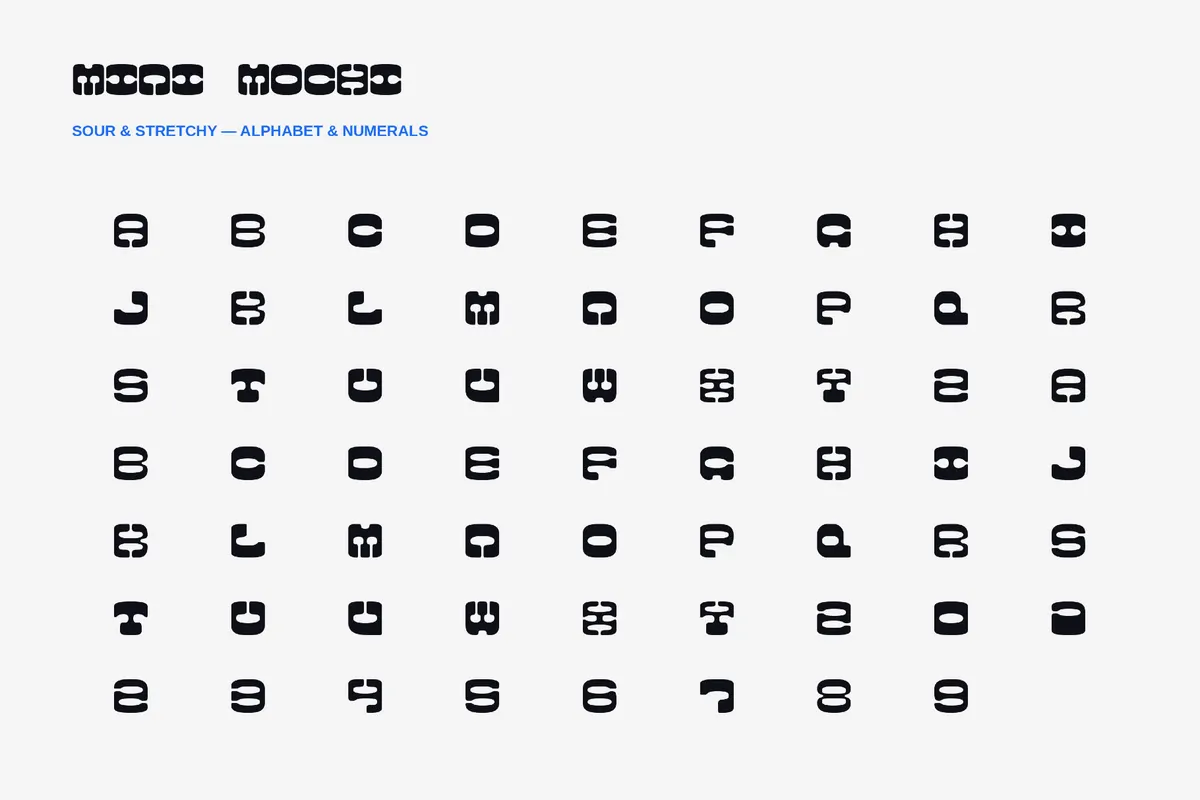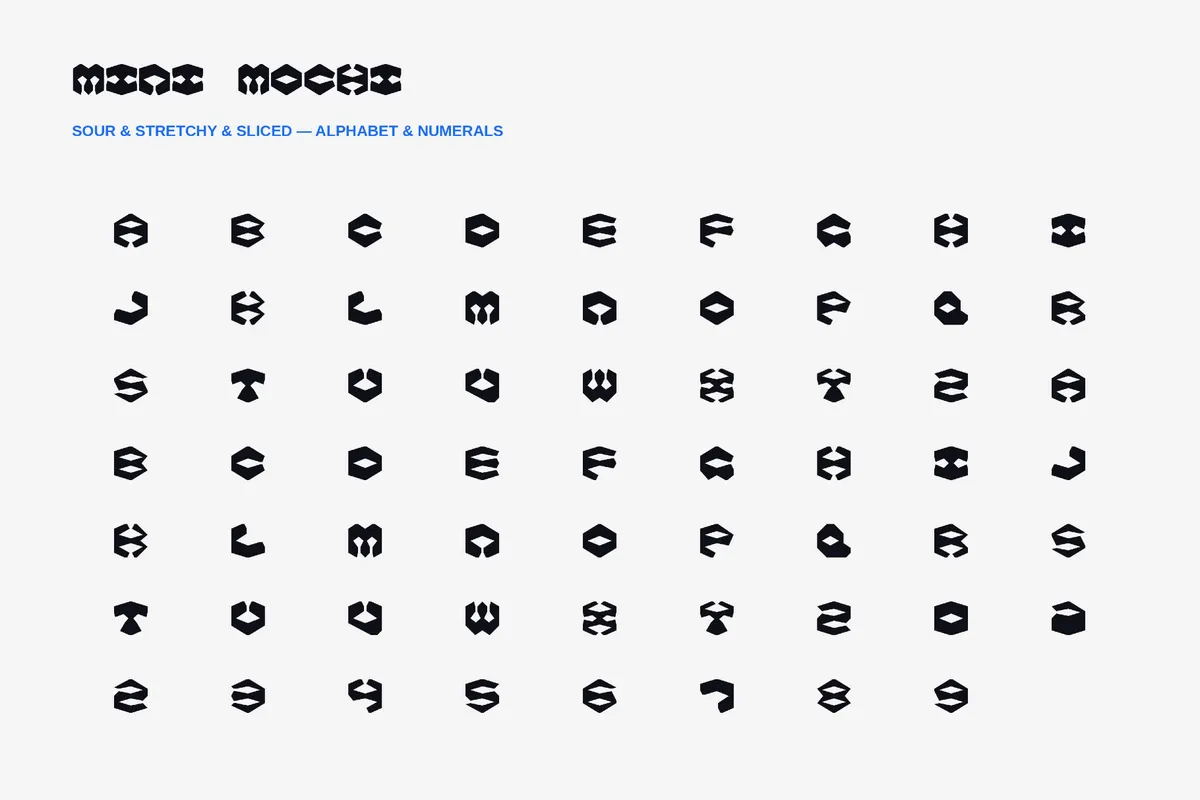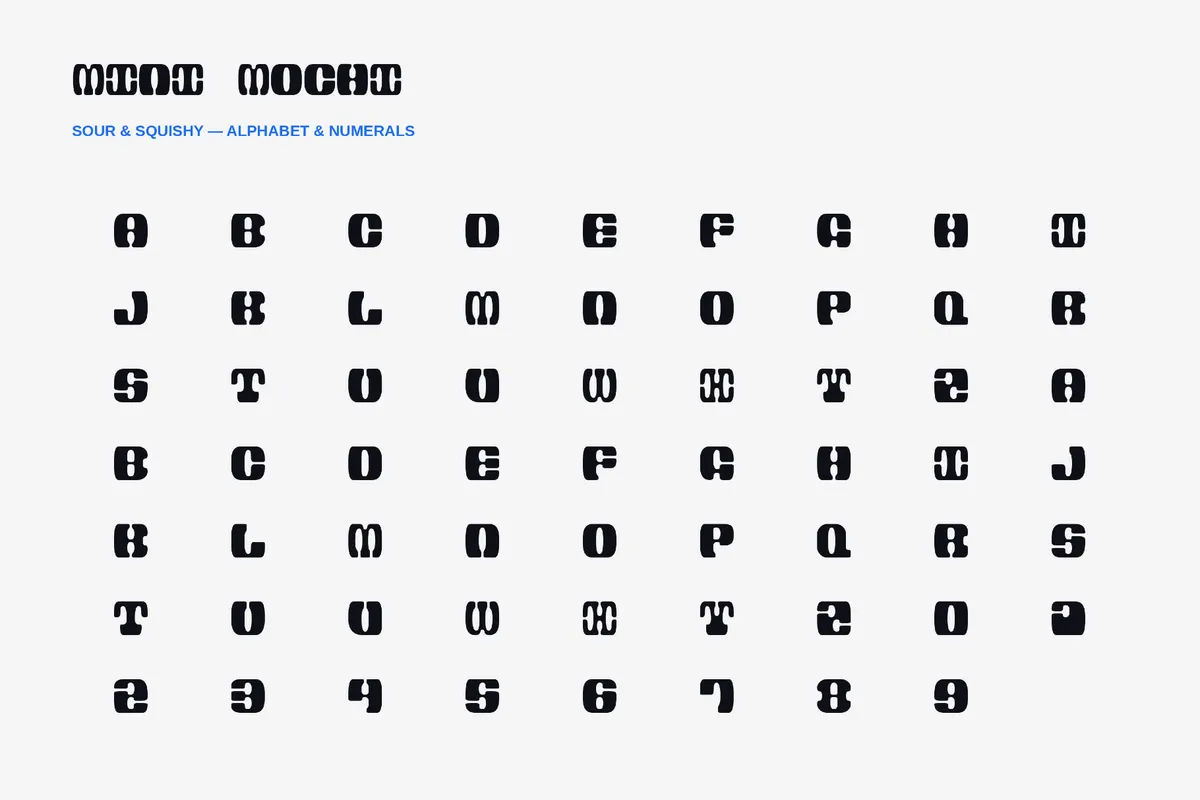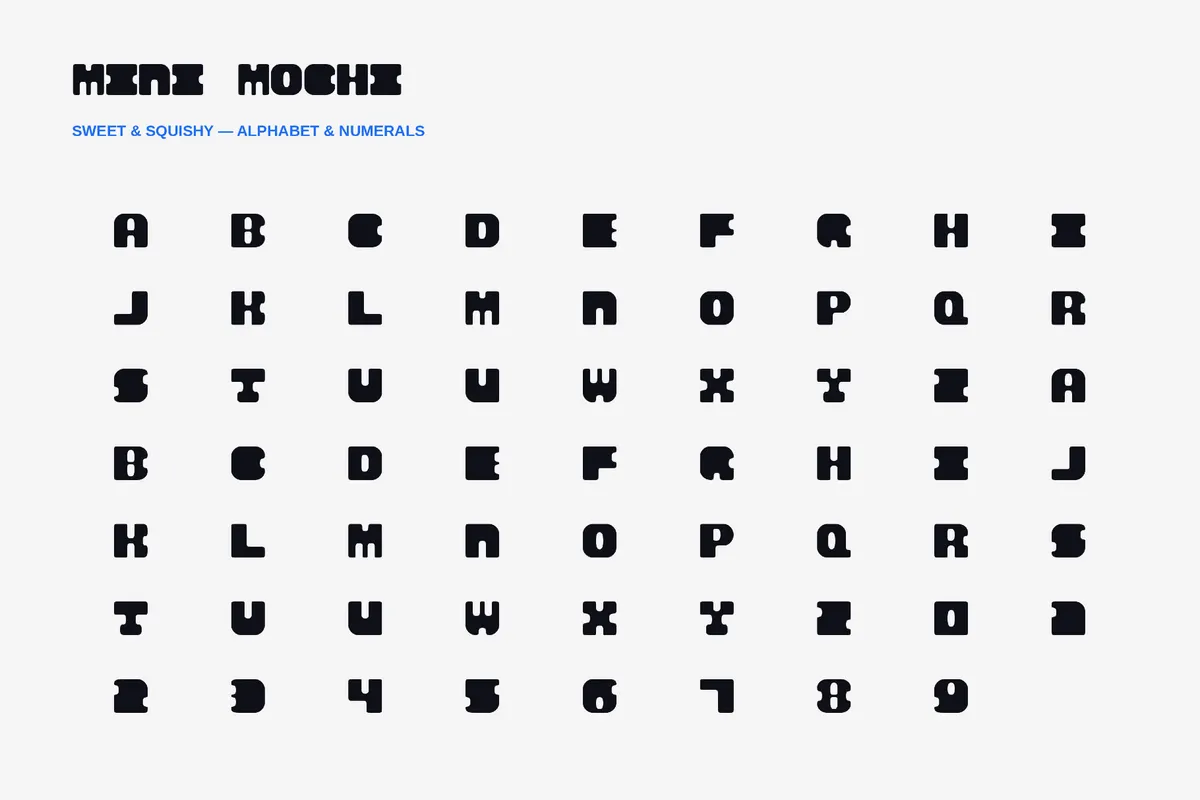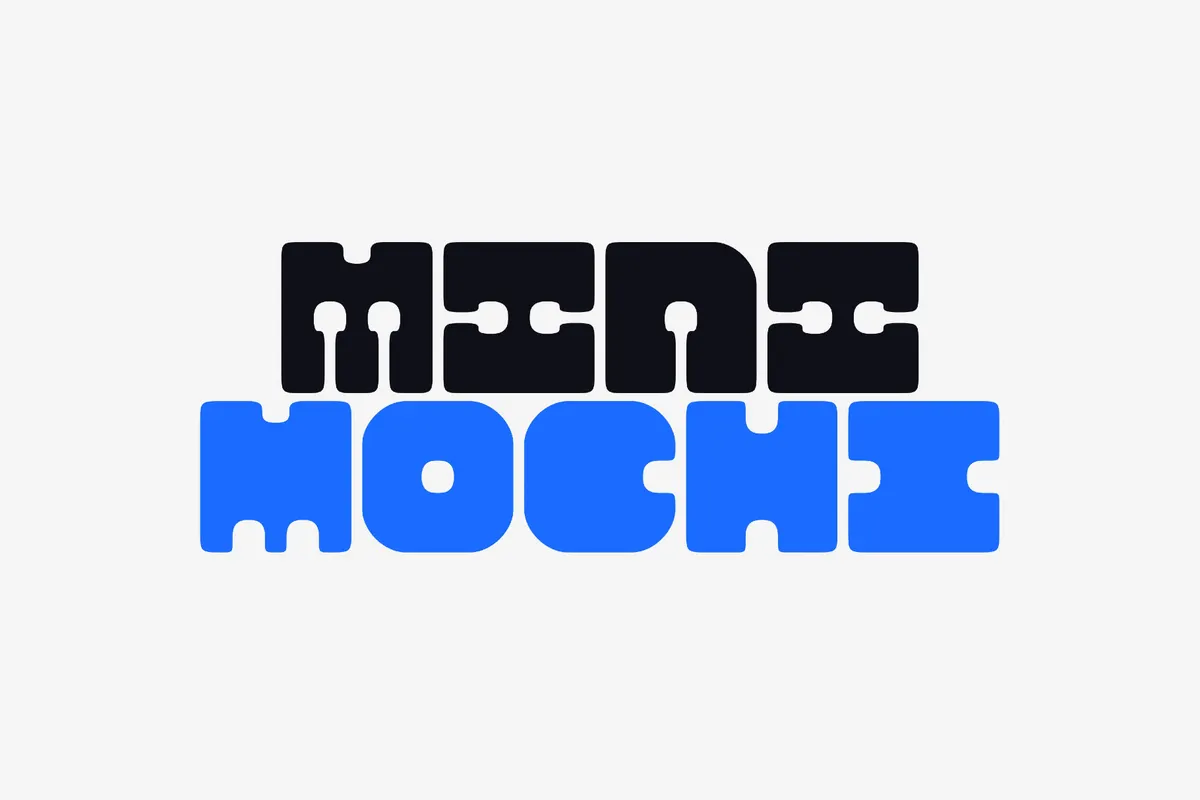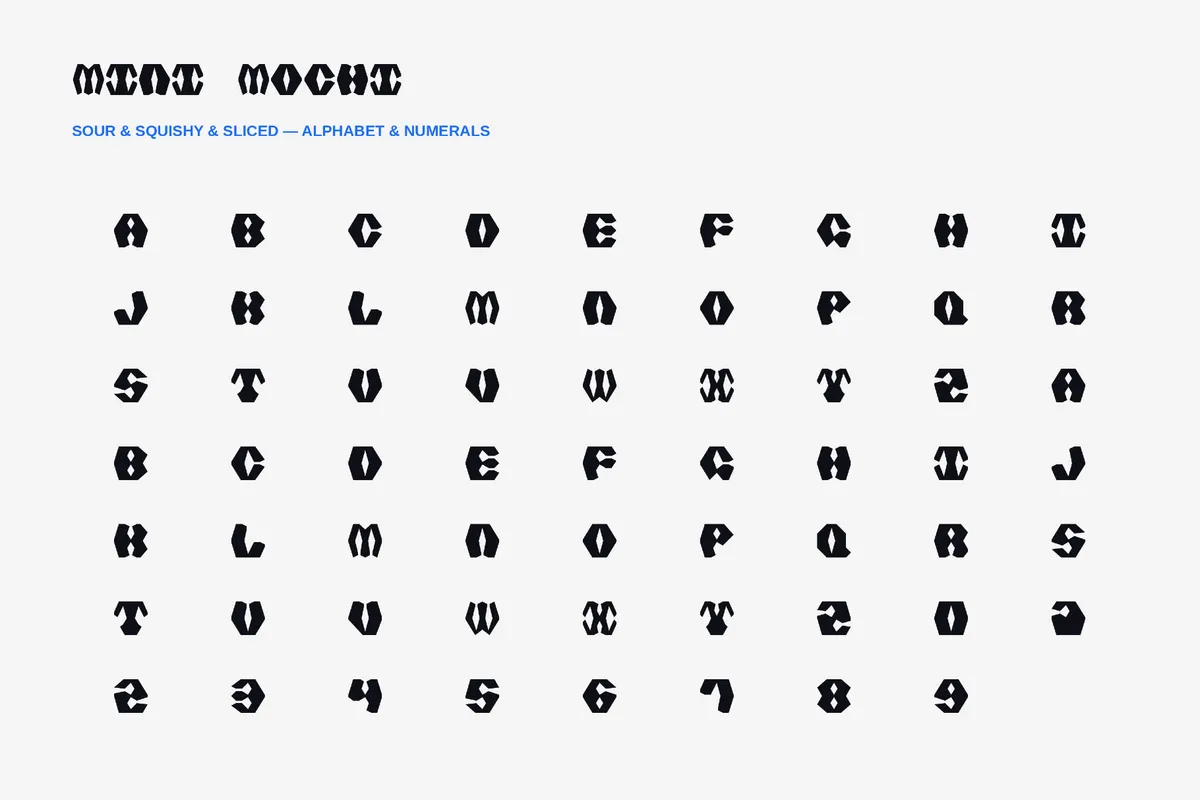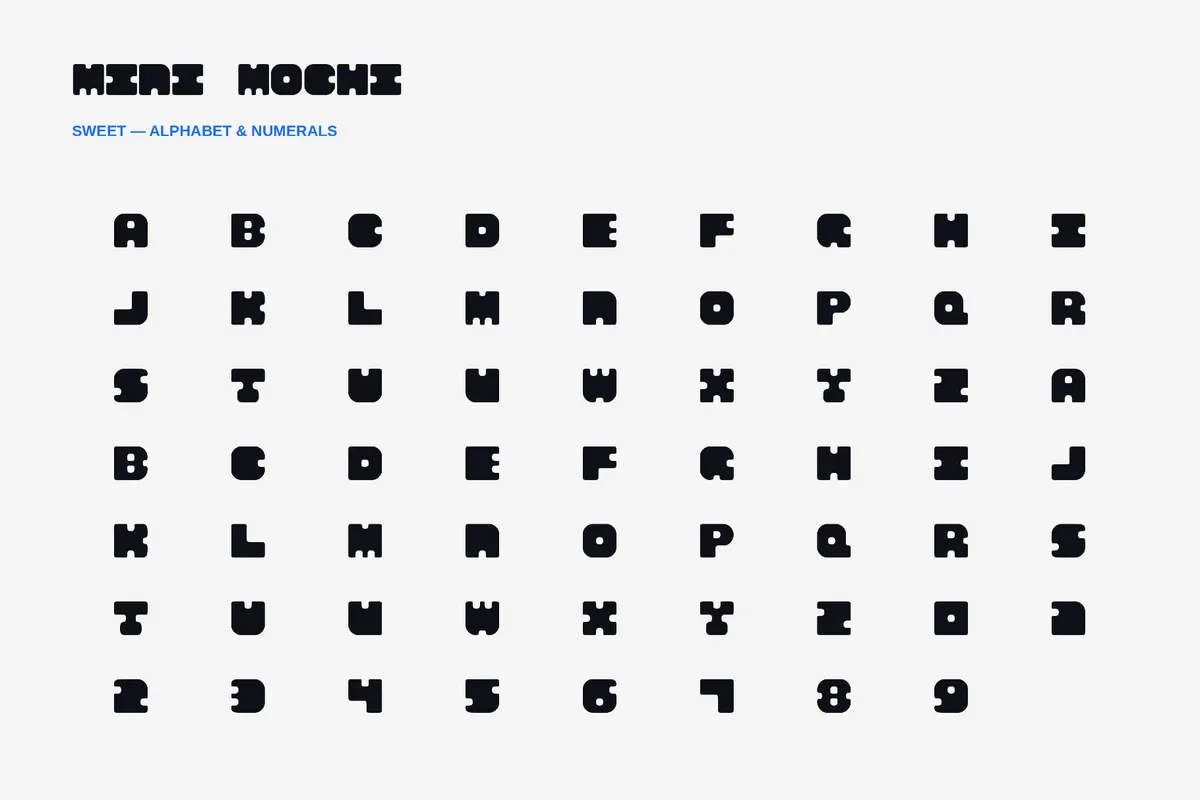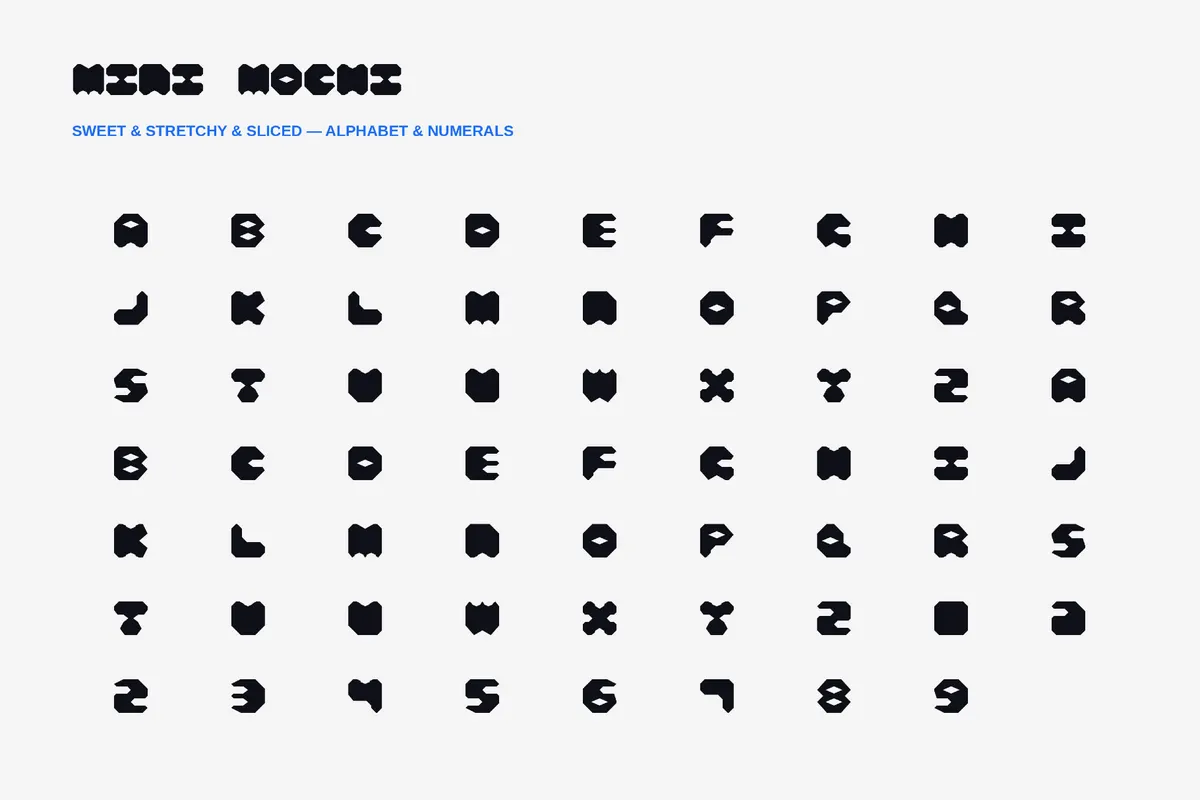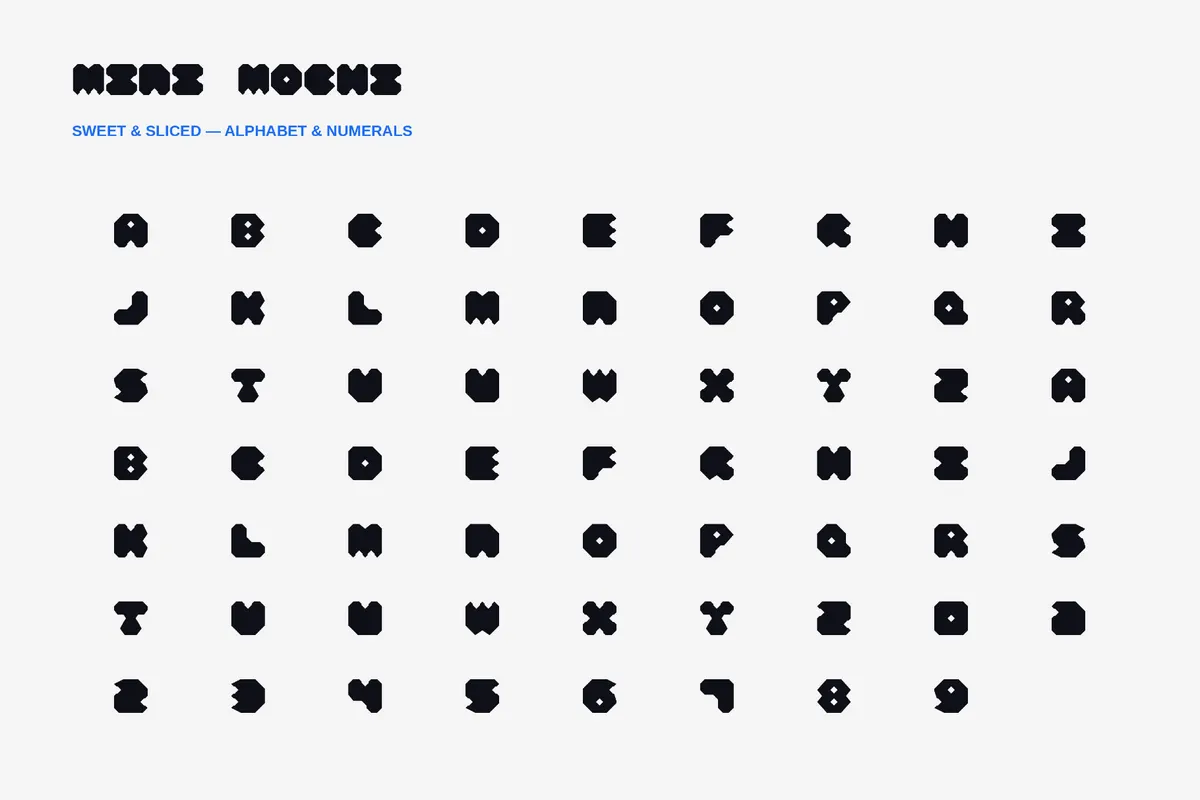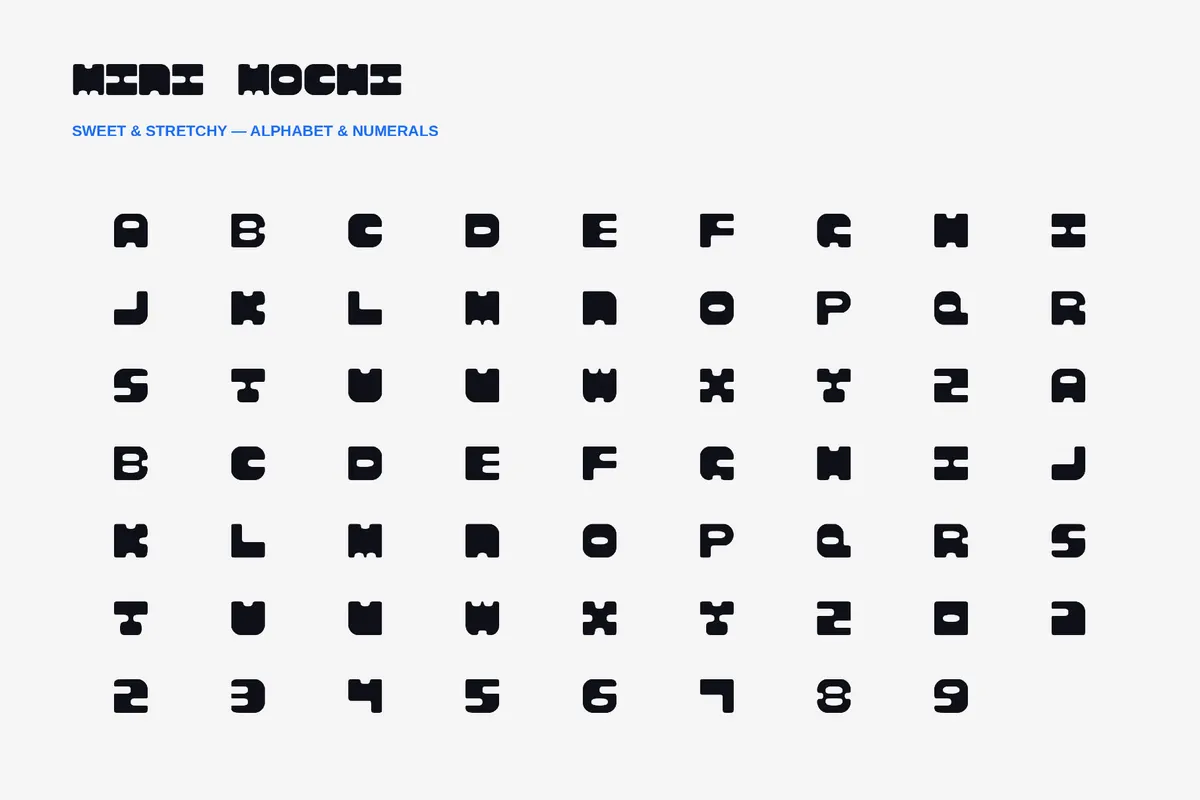
Mini Mochi - Groovy Font Family
Sour
SournSliced
SournSquishy
SournSquishynSliced
SournStretchy
SournStretchynSliced
Sweet
SweetnSliced
SweetnSquishy
SweetnSquishynSliced
SweetnStretchy
SweetnStretchynSliced
Mini Mochi has a soft, rounded sweetness, plump shapes, and kawaii charm that echo Japanese stationery, candy packaging, and cheerful manga titles. When you need an approachable and polished design for dessert branding, toy labels, children’s books, sticker sets, party invitations, app graphics, and social media posts, the font is a perfect choice.